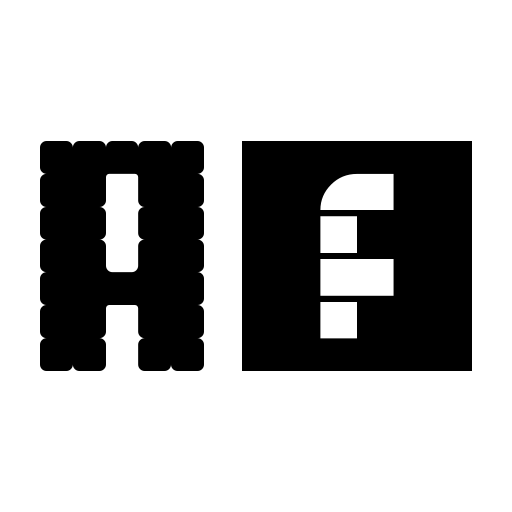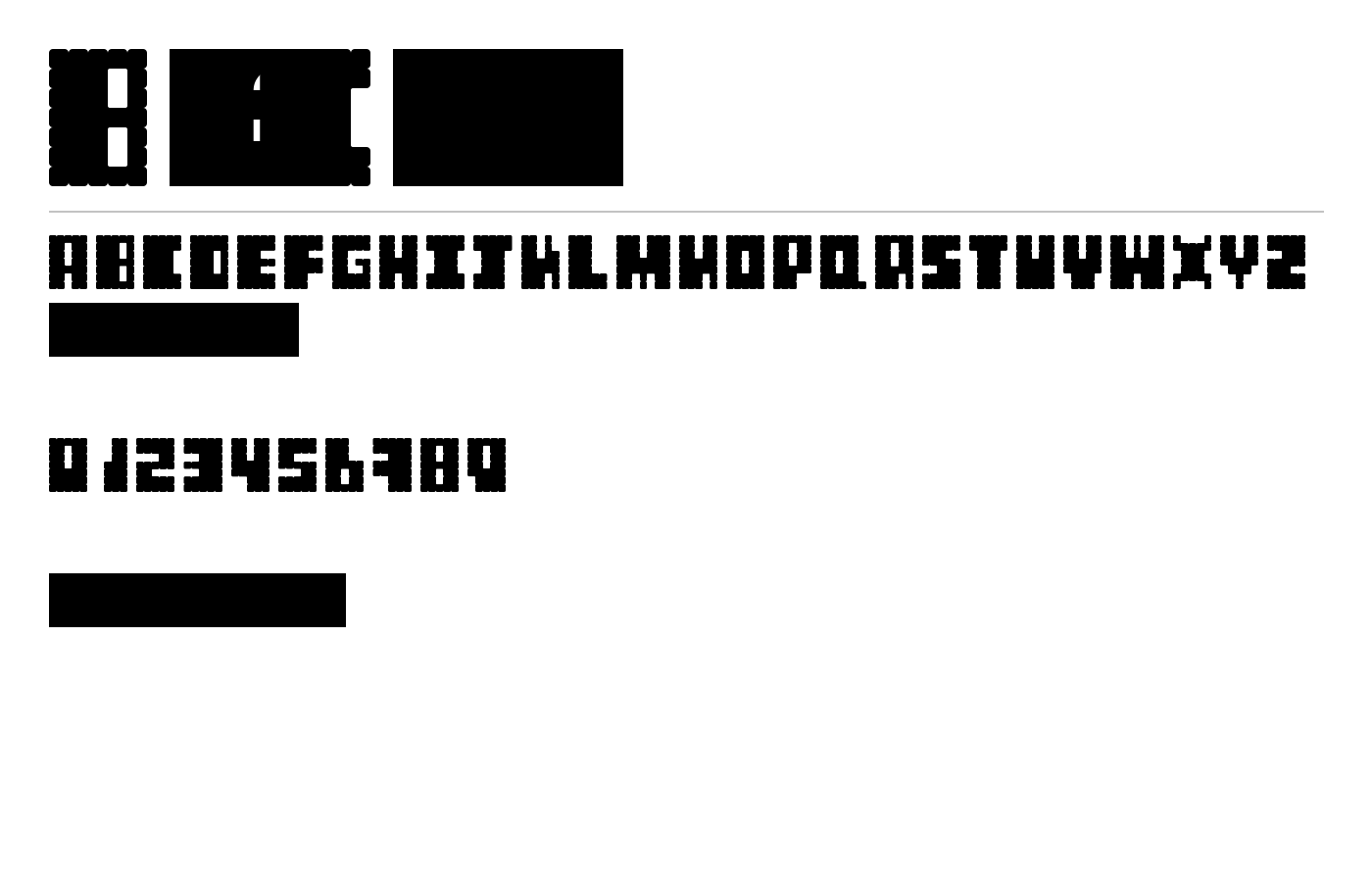
Bold Cracker is a striking, bold sans serif font with a blocky, pixelated design that gives it a strong, geometric appearance. Its heavy weight, uniform stroke thickness, and squared edges create a retro, digital feel perfect for eye-catching headlines, gaming, and tech-inspired branding. This font stands out in creative projects needing a playful yet impactful presence.
Bold Cracker Font
About Bold Cracker Font